Passo & Passeio: two new fonts from Fabio Haag, inspired by the rhythms of life
Passeio
Forward thinking
The development of Passo and Passeio was led by Ana Laydner, with assistance from Henrique Beier, Eduilson Coan and Fabio Haag. Both are inspired by the different rhythms of life.
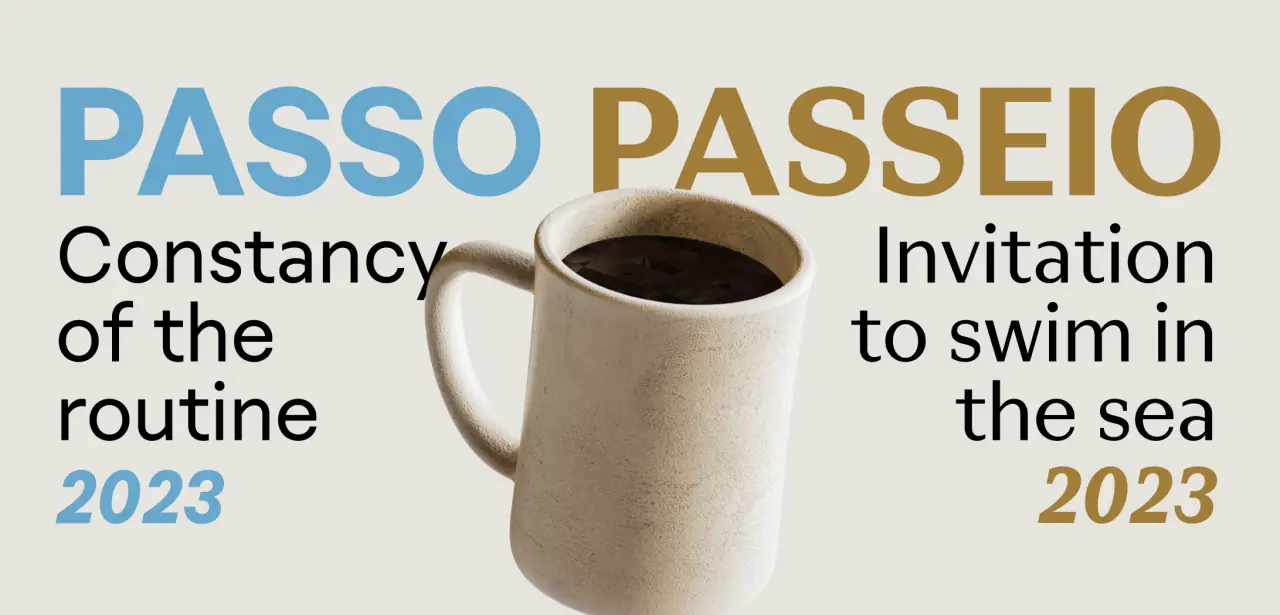
Passo & Passeio
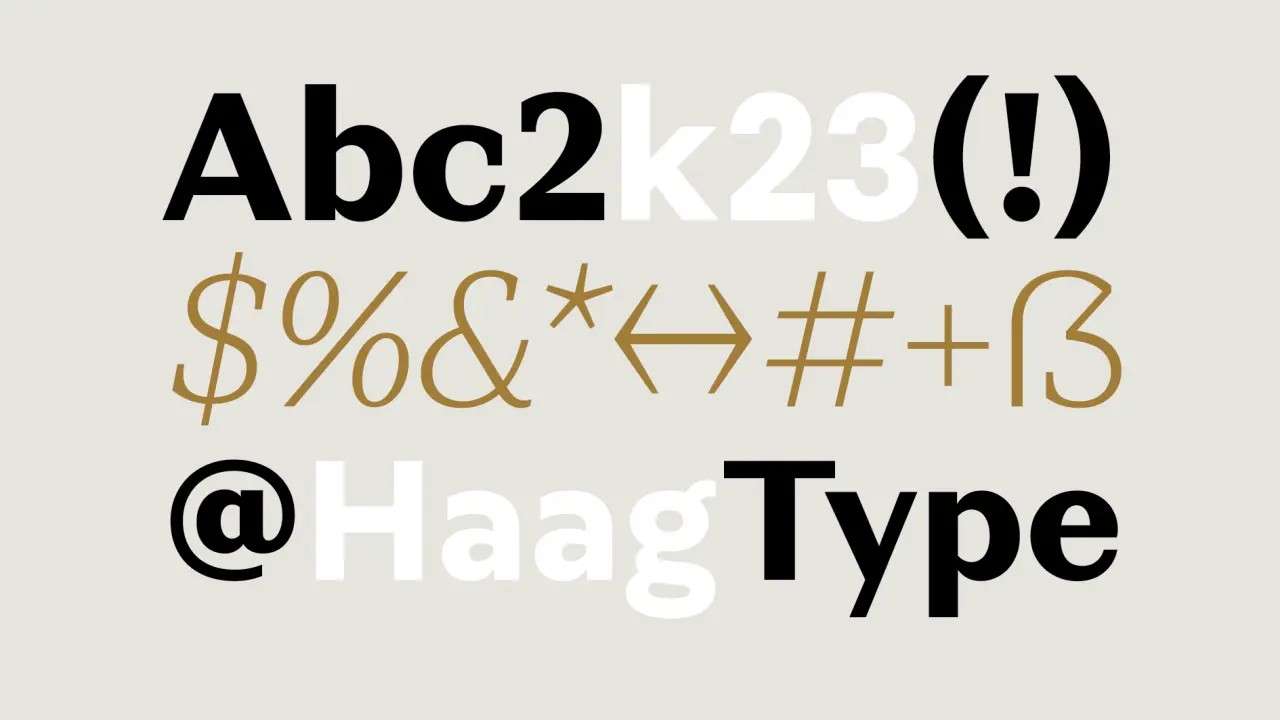
Passeio detail
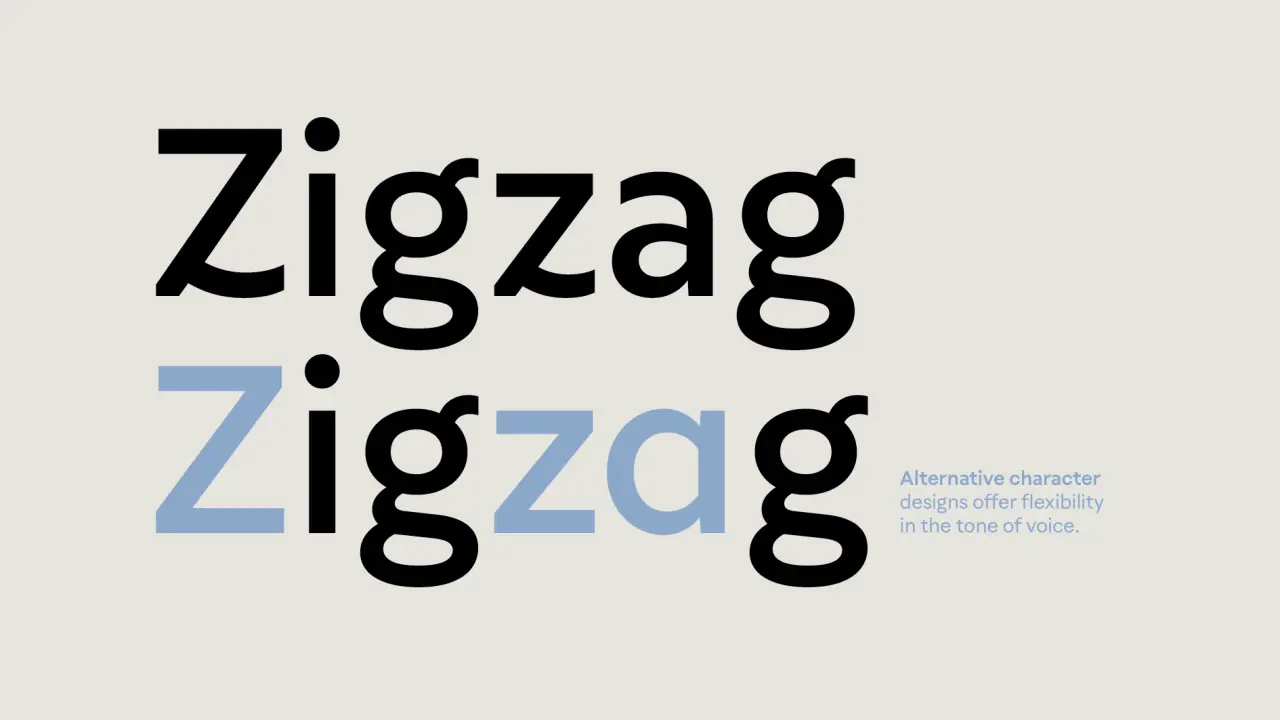
Passo detail
"With one foot in front of the other, step by step, we keep drawing and living," explains Fabio. "The gentle breathing in silent meditation. Galaxies are expanding in the universe. Leaves are growing in the apartment.
"One thing connects it all," he continues. "To be alive is to be moving. On a daily basis, we accelerate the pace. Routine, form following function. Looking forward to the weekend chill. Or rather, this afternoon? Can we make it work?"
So, how do these ideas inform the design of the fonts? "Passo has the constancy of the routine," he explains. "Monolinear, with low contrast, delivers the message efficiently and directly. It is the coffee to repeat at any time of the day. It will help you solve various challenges without raising existential questions."
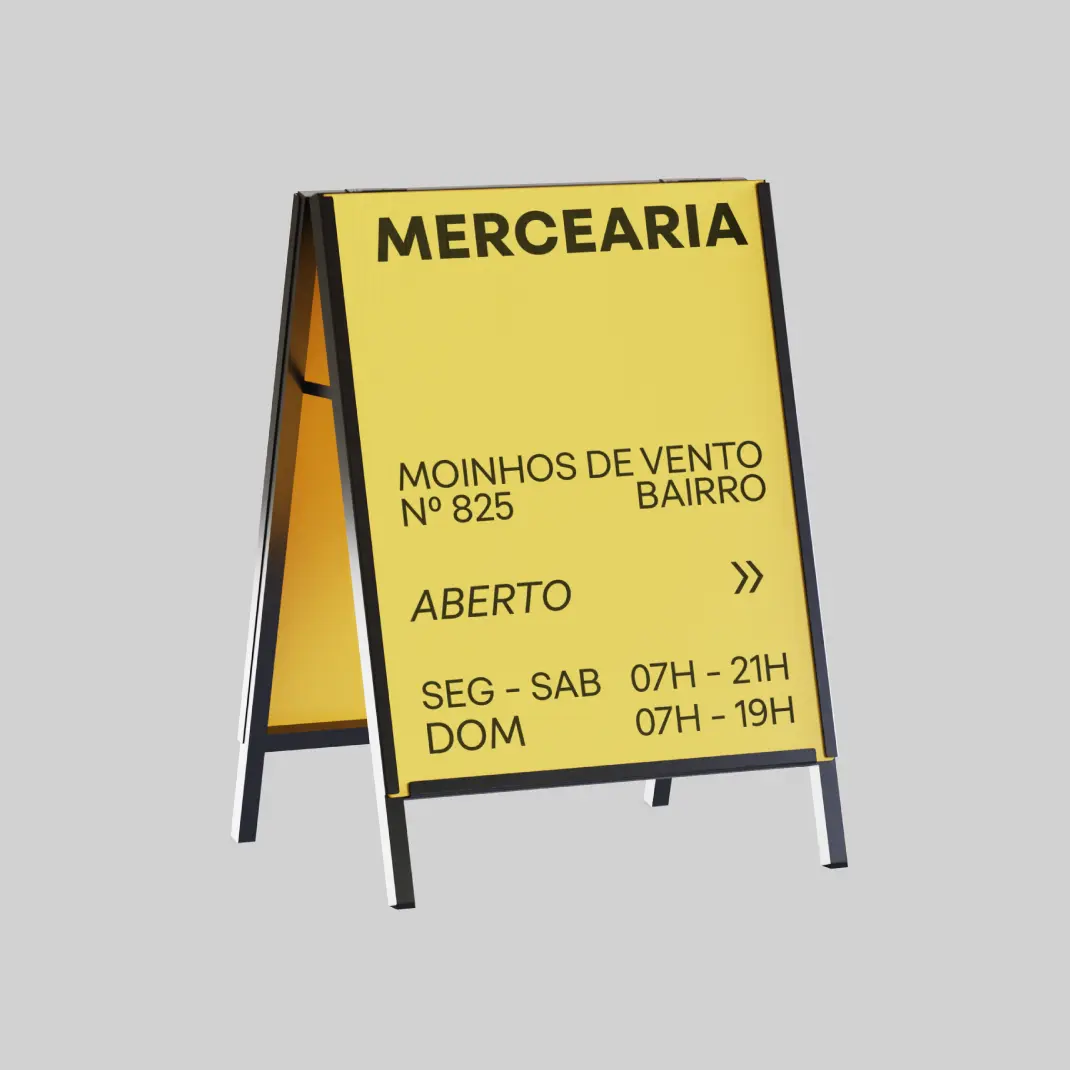
Passo
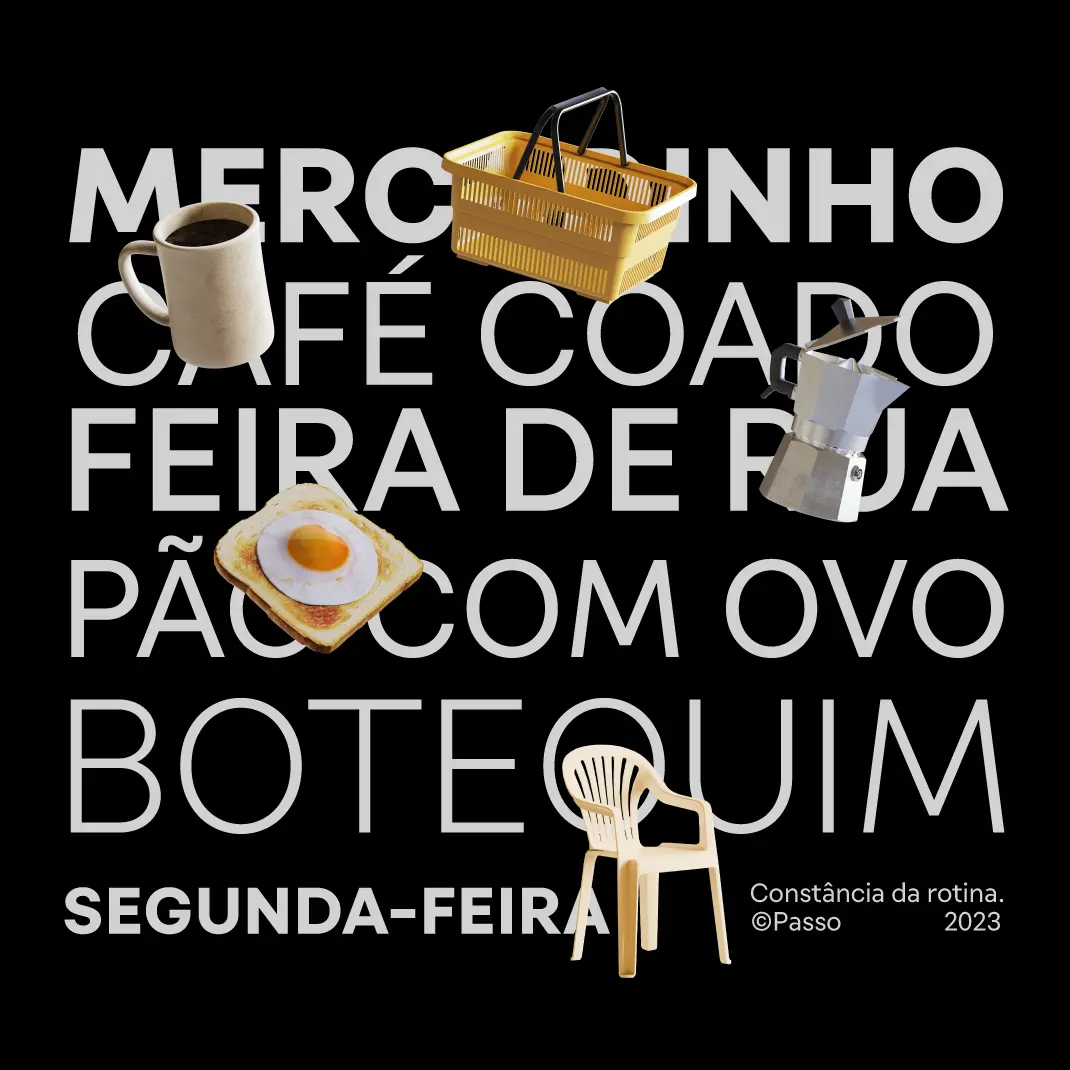
Passo
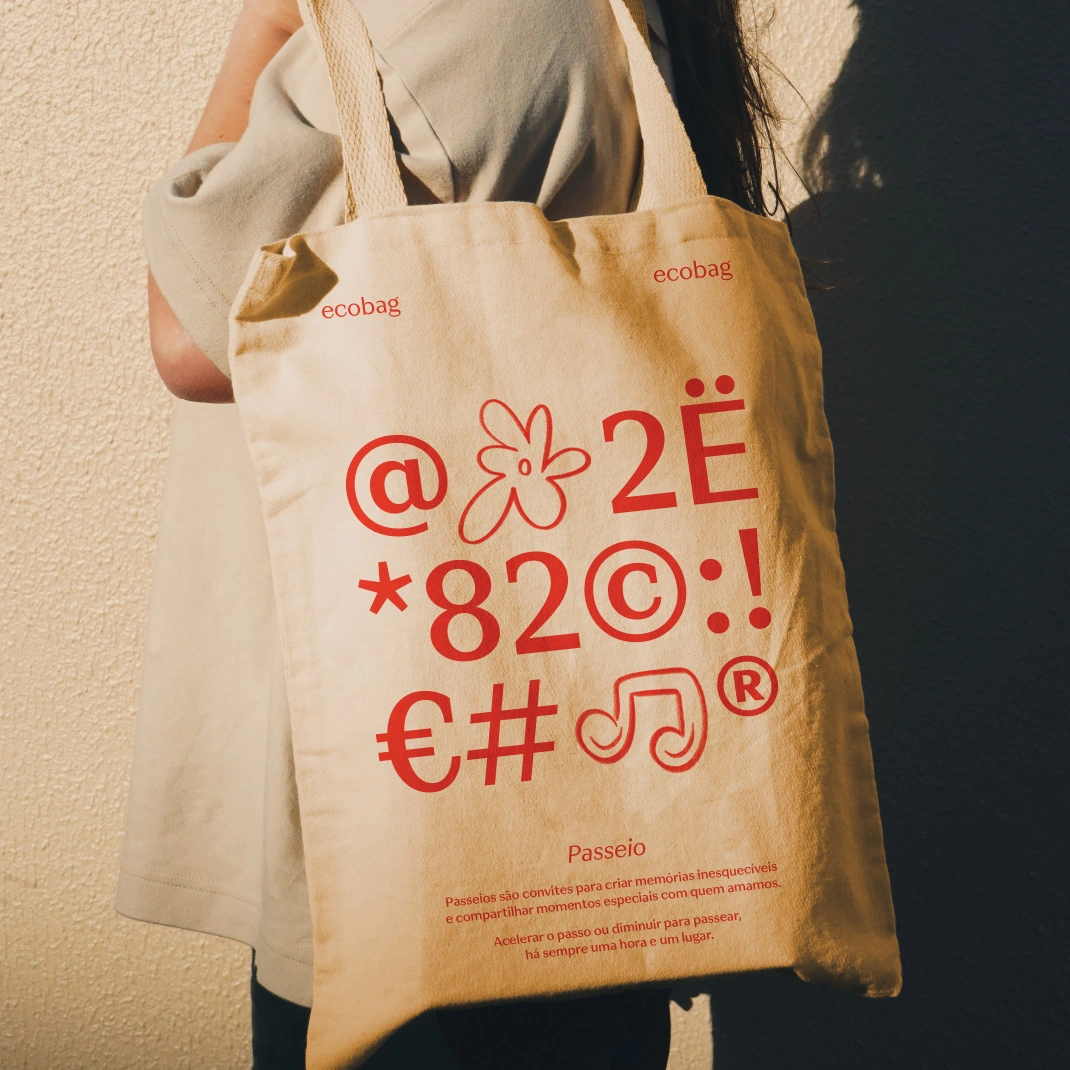
Passeio
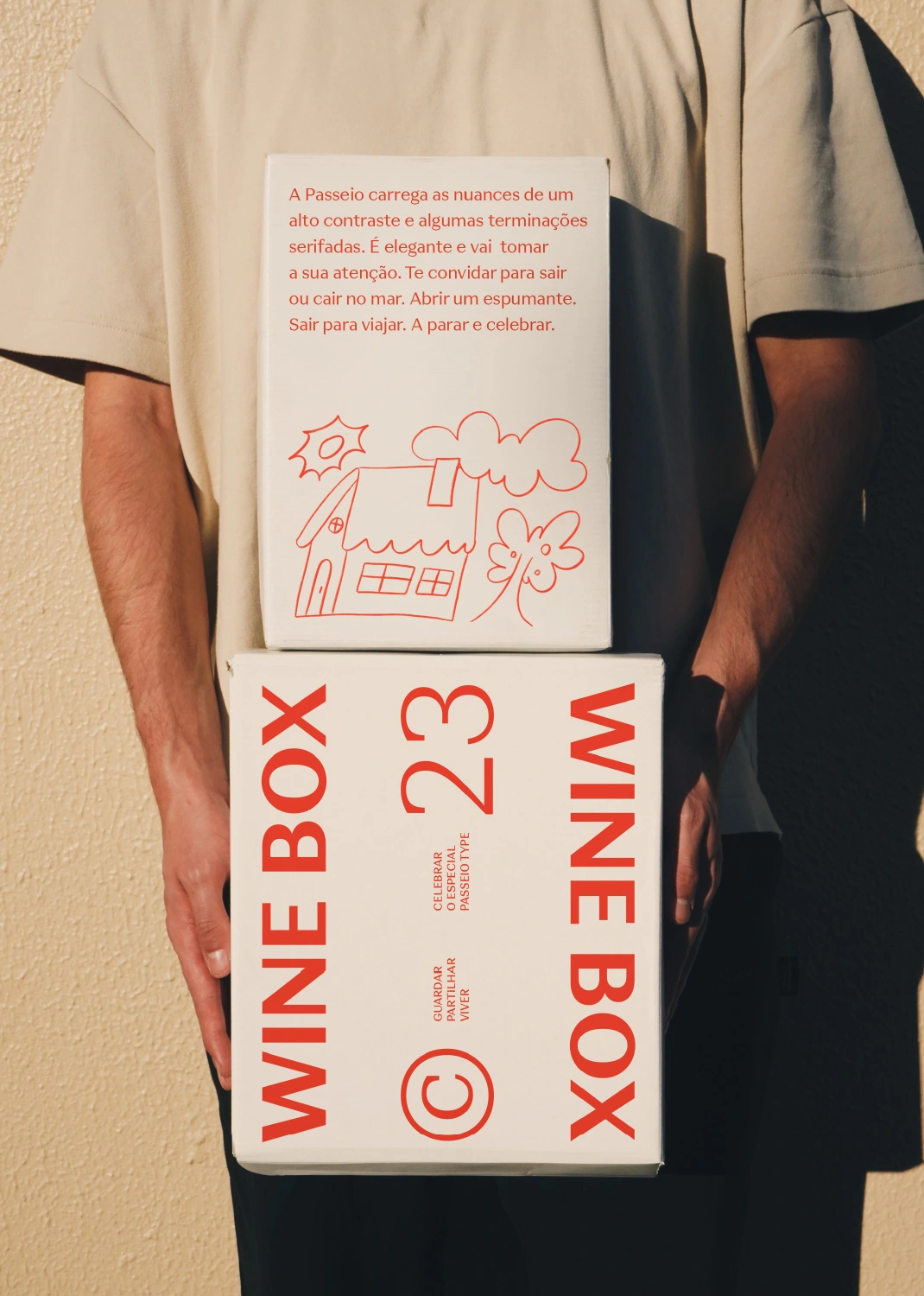
Passeio
Passeio, on the other hand, carries the nuances of a medium contrast and a few serifs. "It is elegant and will catch your attention. Ask you out or invite you to swim in the sea. Open a sparkling wine. Go out to travel. To stop and celebrate."
Both fonts are available in eight weights and two styles and features support for 209 languages based on the Latin script.